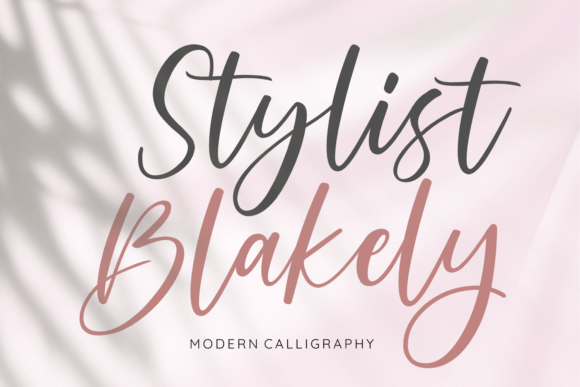
Introducing Stylist Blakely, the script font designed to evoke a sense of elegance and creativity. Its calligraphic strokes bring life to your ideas, making it the perfect companion for wedding designs, product branding, quotes, logo creation, and more. With Stylist Blakely, your words will dance with grace, leaving a trail of timeless beauty behind.
With Stylist Blakely, you'll be able to:
1. Craft uniquely captivating wedding stationery, invitations, and menus.
2. Elevate your product designs with a touch of sophistication.
3. Design stunning quotes that deserve to be framed and showcased.
4. Create logos that exude luxury and charm.
5. Add an artistic dimension to your handmade crafts and DIY projects.
Stylist Blakely is not just a font; it's an artistic adventure that invites you to explore your creativity. With its PUA encoding, you can effortlessly access a world of glyphs and swashes, unlocking endless possibilities for customization.